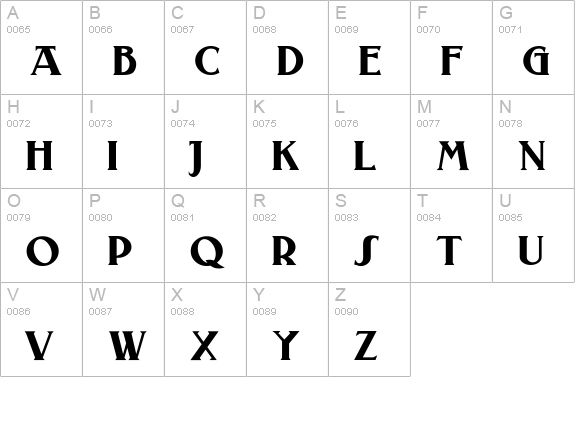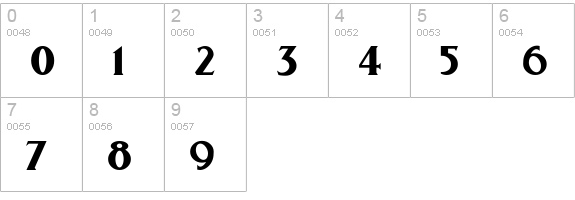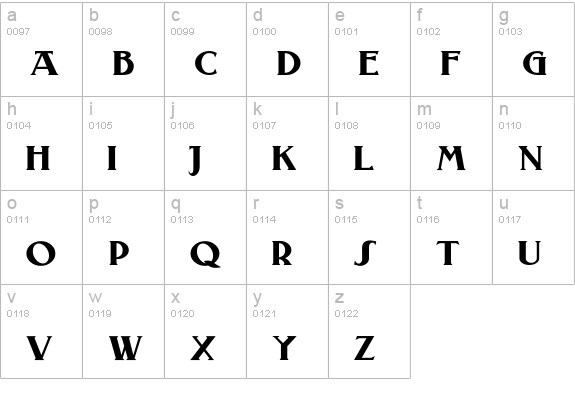
Laconick-NormalA Font Details
Laconick-NormalA is a versatile and modern font that effortlessly combines simplicity with elegance. It is designed to bring a touch of sophistication to any project, whether it be for print or digital media. With its clean lines and balanced letterforms, Laconick-NormalA is perfect for creating eye-catching headlines, captivating logos, and sleek branding materials. This font boasts a harmonious balance between classic and contemporary design elements, making it suitable for a wide range of applications. Its versatility allows it to be used in various industries, including advertising, fashion, technology, and more. With Laconick-NormalA, you can effortlessly create designs that exude professionalism and style. One of the standout features of Laconick-NormalA is its readability. Each letter is meticulously crafted to ensure clarity and legibility, even at smaller sizes. This makes it an excellent choice for body text, ensuring that your message is easily absorbed by readers. What sets Laconick-NormalA apart is not only its exceptional design but also the fact that it is available for free. Yes, you read that right! This font can be freely downloaded at FontsMarket.com, allowing designers, creatives, and enthusiasts alike to access and utilize its unique aesthetic qualities without breaking the bank. Whether you're a seasoned professional or just starting out, Laconick-NormalA is a font that will undoubtedly elevate your designs. Its impressive versatility, readability, and affordability make it a must-have addition to any designer's toolkit. So why wait? Head over to FontsMarket.com and download Laconick-NormalA today to unlock a world of creative possibilities.